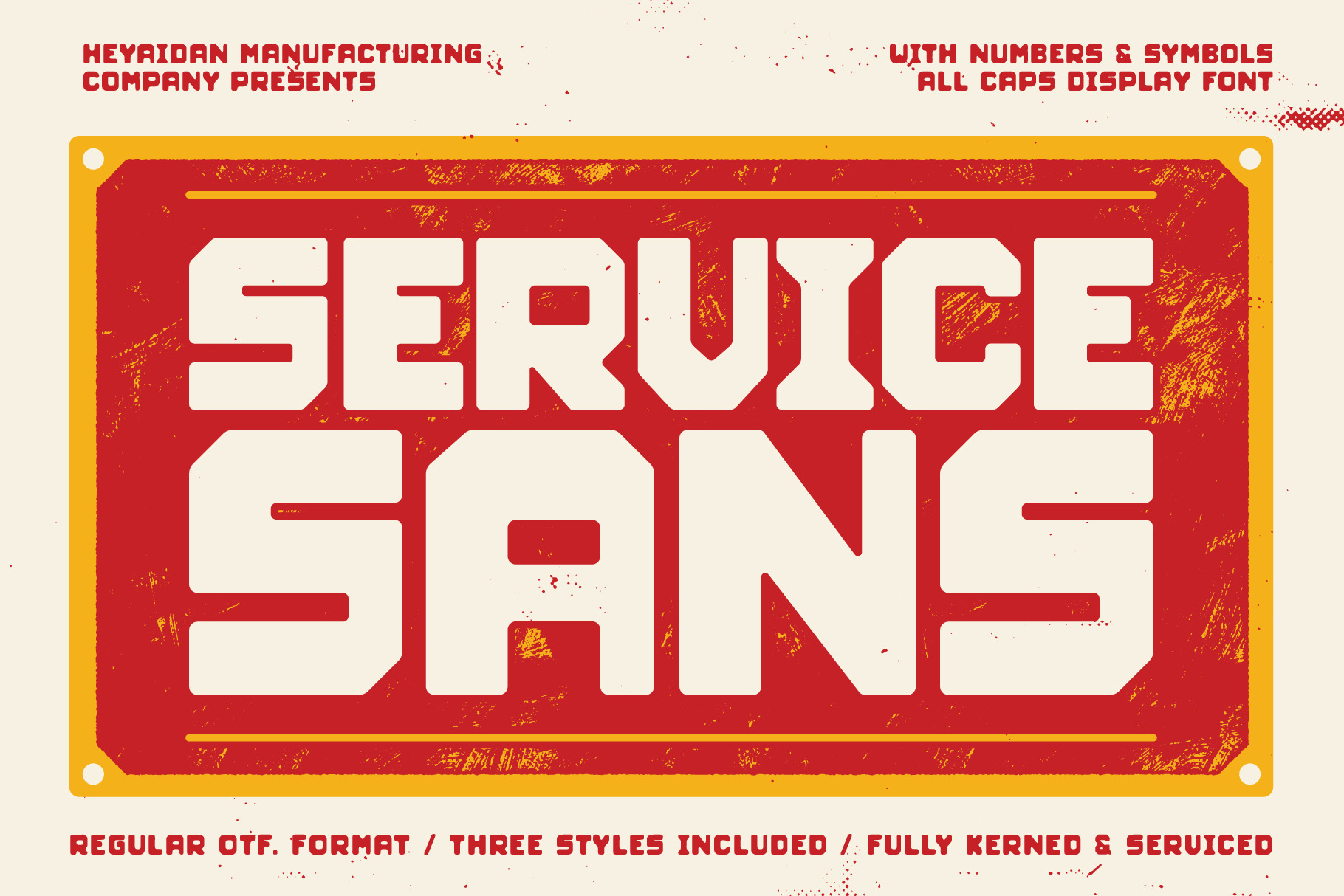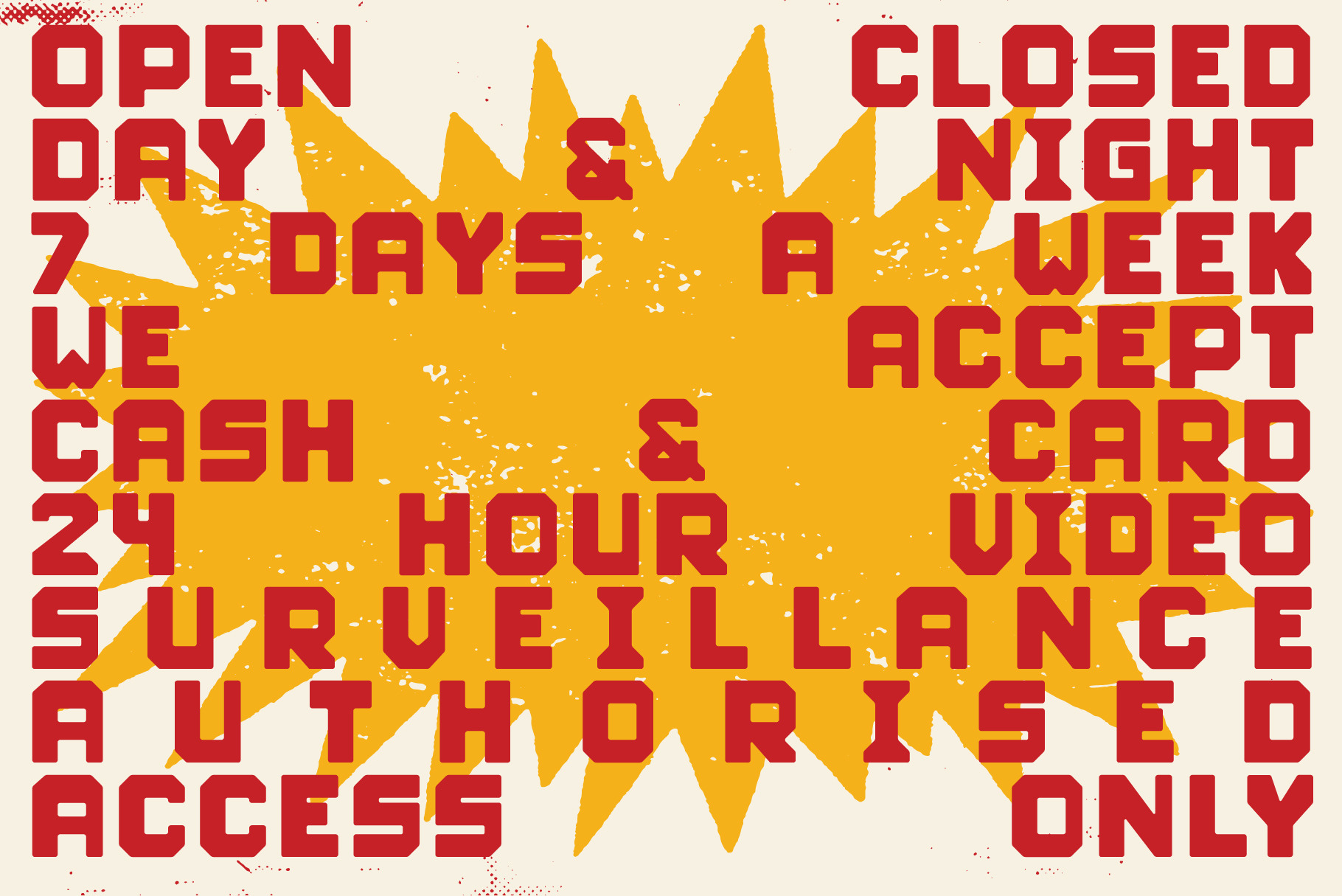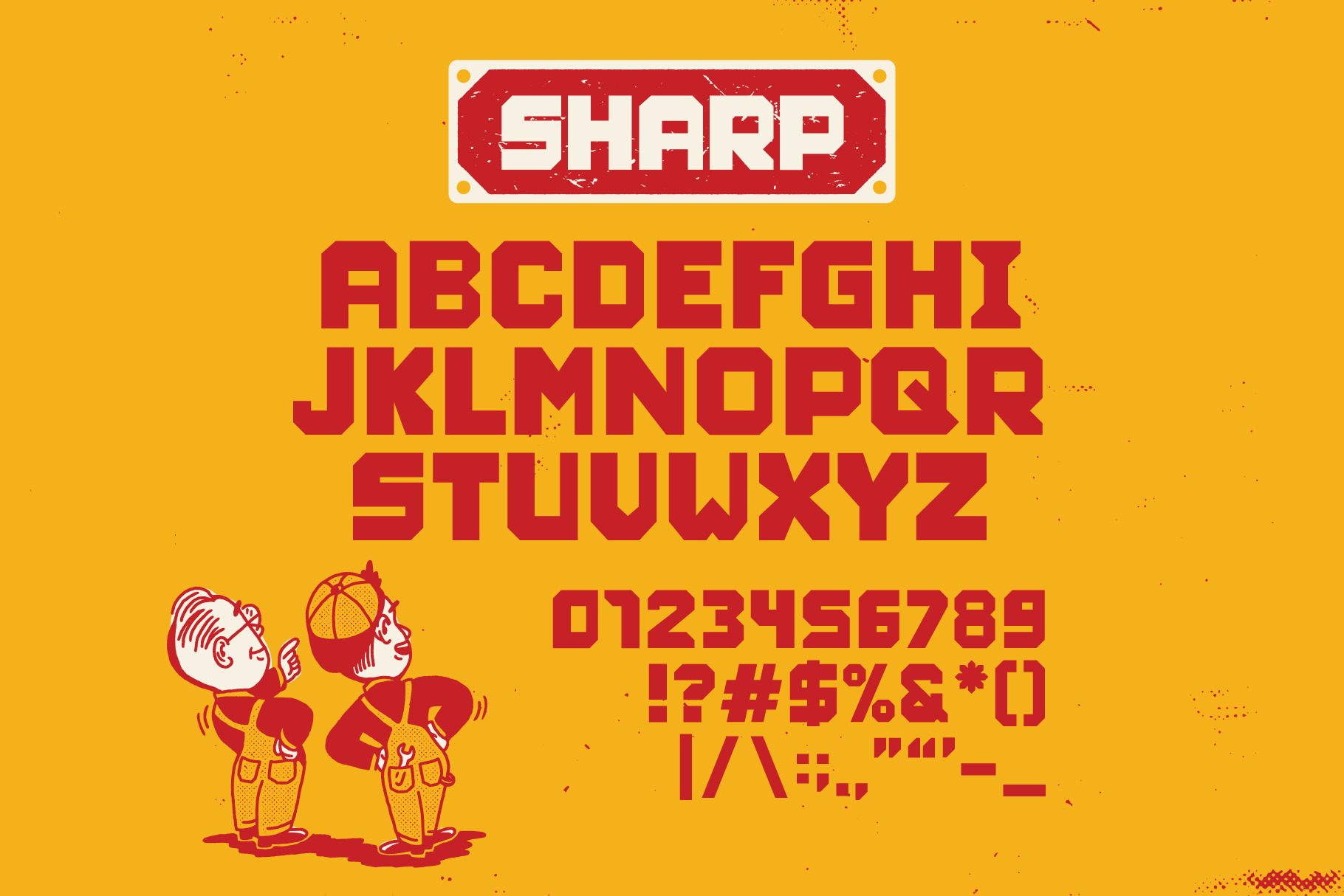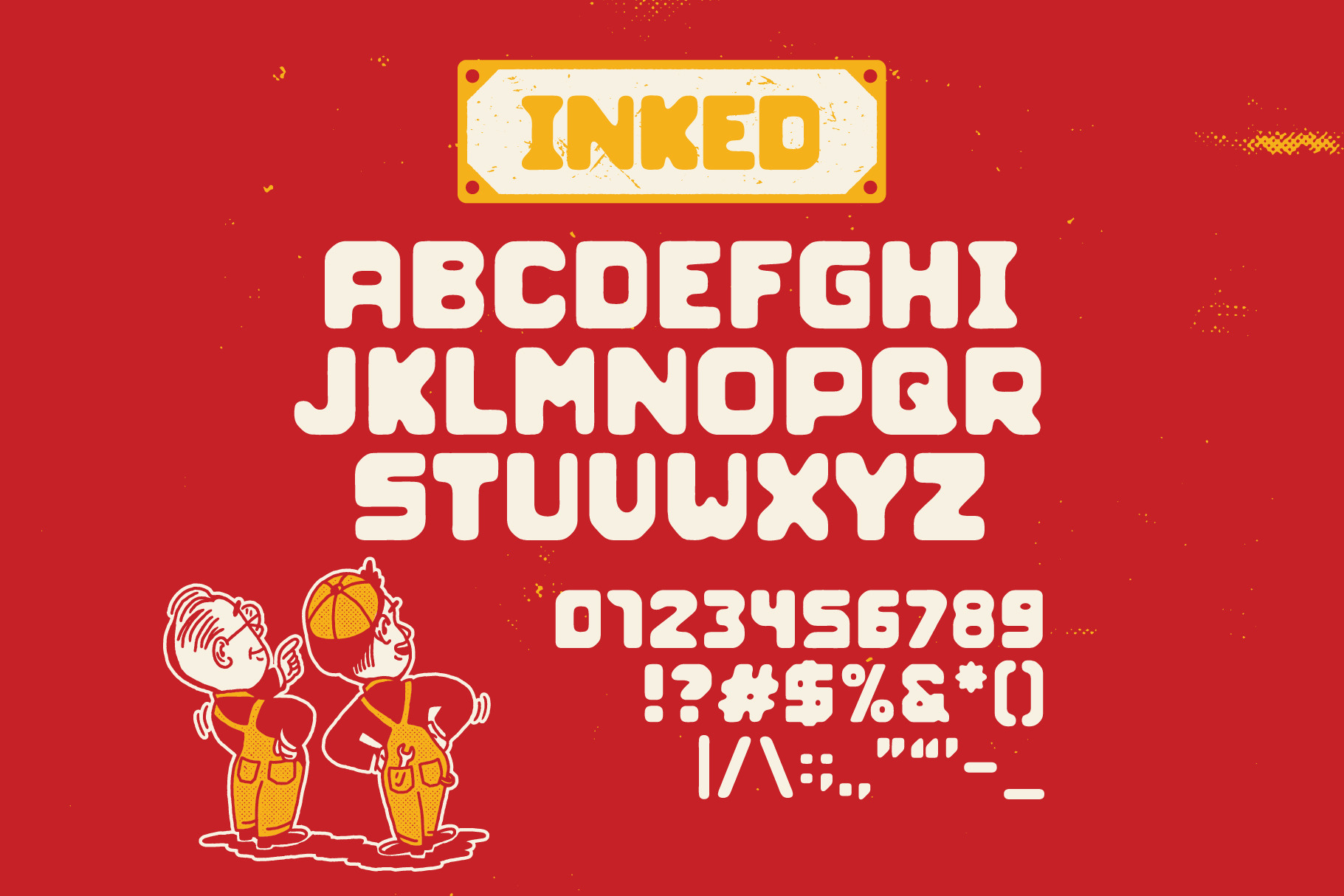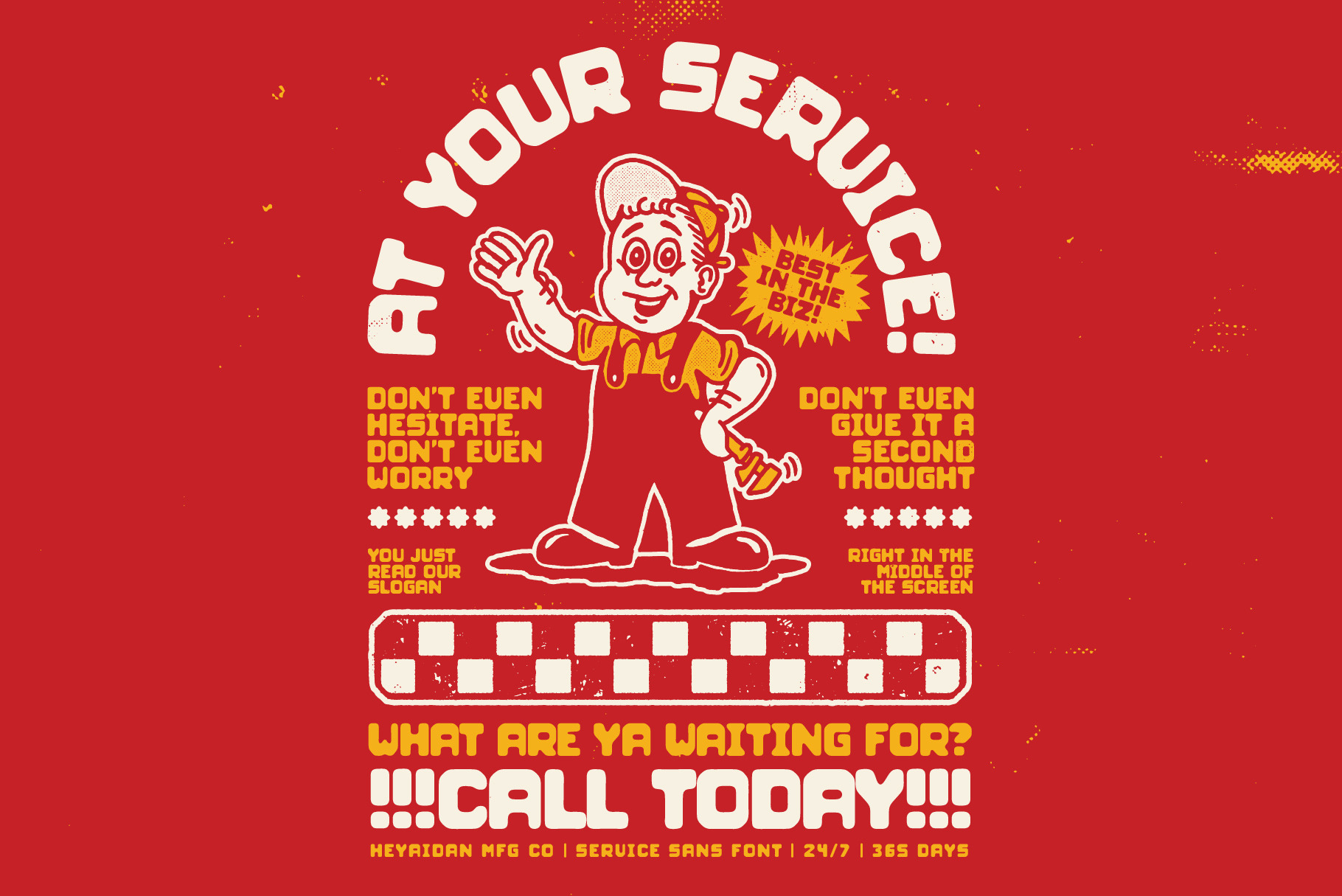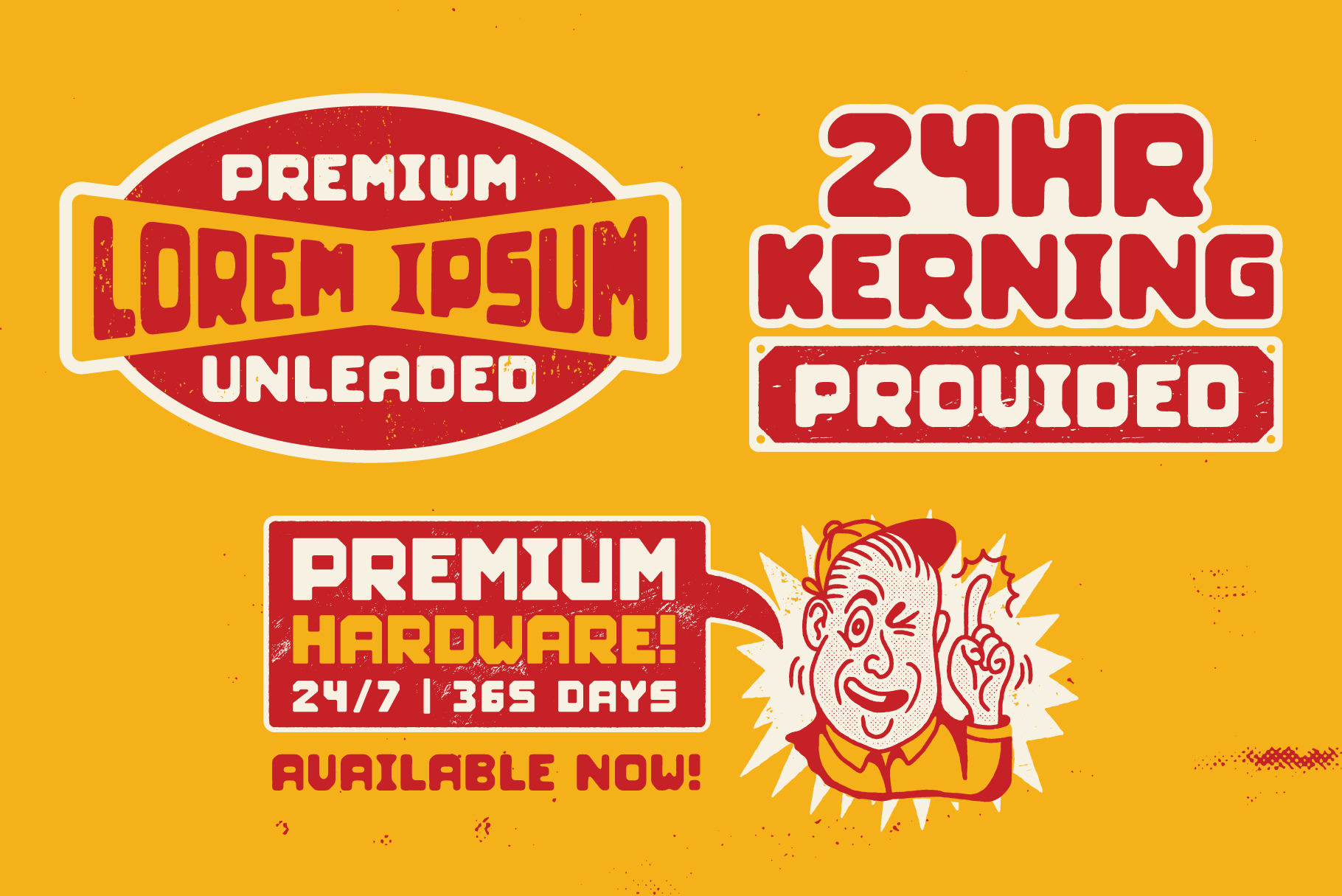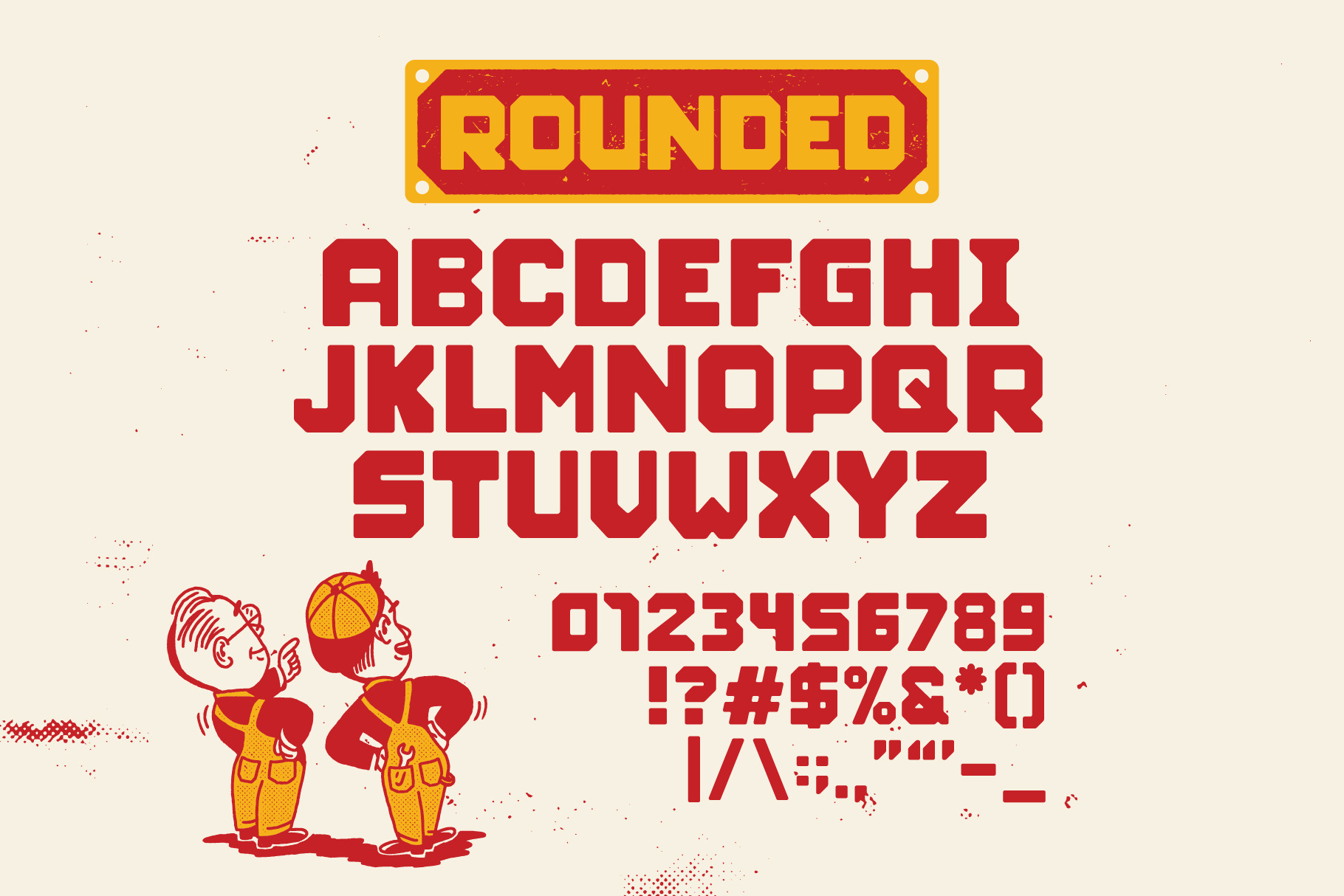
At your Service! Introducing Service Sans, a font that I modified from a typographic title I spotted in a video, at an art gallery. Do your designs need some sprucing up Now is the time to book in your next Service and get your greasy hands on this bold and retro font. Only the best in the west when it comes to solid forms and a mixtures of styles. Don't even hesistate, don't even worry, don't even give it a second thought, drive away today with a fresh service from HeyAidan MFG Co. Service Sans is an All Caps display font featuring three styles to work with; Sharp, Rounded and Inked. Sharp is geometric with crispy edges, Rounded is similar to the latter but with rounded corners, while Inked looks some greasy fingers got all over it (in the best way possible of course!). - What is included in your download: - 3x OTF font files (sharp, rounded and inked) - Letters in all caps - Numbers - Most Punctuation - Most common symbols - Drive away today, no more to pay! - Once purchased, you will receive a download link shortly after. Feel free to message me if you have any questions. - Want to see what else I'm up to Check out my Instagram and Website below: - https://www.instagram.com/heyaidan_/ - https://www.heyaidan.com/ If you're after an original illustration for your next project, drop me an email via  | Service Sans | Retro Blocky Font | Odd Copy